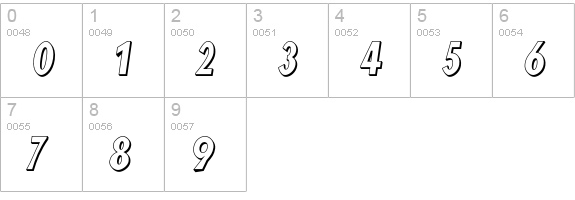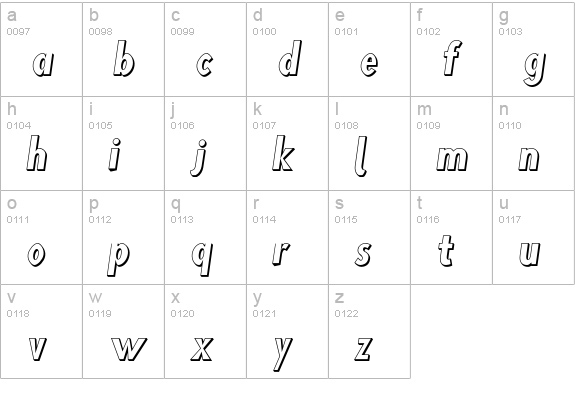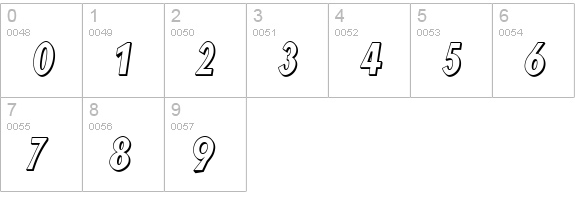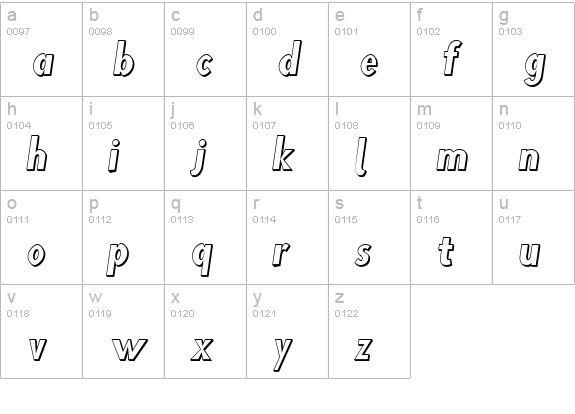
Blink 3D Oblique Font Details
Blink 3D Oblique is a distinctive, italic variant in the Blink typeface family \xE2\x80\x94 well suited to design and typography projects.
Introducing Blink 3D Oblique font, a captivating and dynamic typeface that effortlessly combines modernity with a touch of finesse. This font is the perfect choice for those seeking to make a bold statement with their designs, as it exudes an air of sophistication and creativity. Blink 3D Oblique font features a unique combination of slanted angles and three-dimensional depth, creating a visually stunning effect that will surely captivate the eyes of your audience. Its sleek and edgy design makes it ideal for various design projects, such as logos, headlines, posters, and branding materials. With its versatility and attention-grabbing appearance, Blink 3D Oblique font is sure to leave a lasting impression. Whether you're working on a contemporary website or a futuristic sci-fi movie poster, this font will elevate your designs to new heights. But that's not all - Blink 3D Oblique font is also available for free! That's right, you can freely download this incredible font at FontsMarket.com. It's never been easier to add a touch of modernity and elegance to your designs without breaking the bank. So why wait? Don't miss out on the opportunity to enhance your creative projects with Blink 3D Oblique font. Download it for free today at FontsMarket.com and let your designs shine with unparalleled style and sophistication.